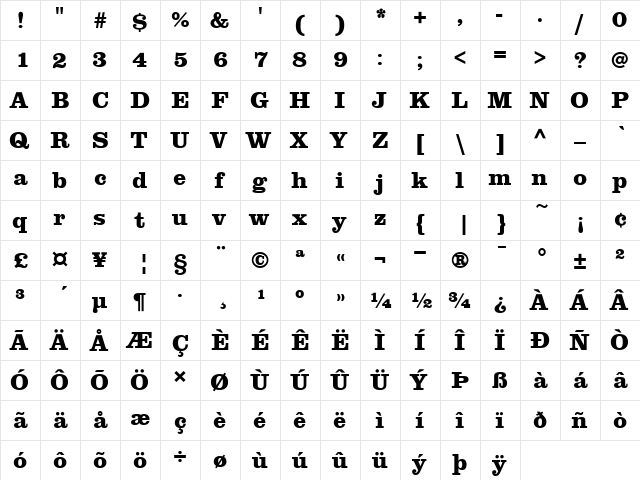
Clarendon T Regular
Design Context for Clarendon T Typeface
Clarendon T combines the readability of serif typography with the visual weight of a slab construction, resulting in a typeface that feels both authoritative and approachable.
Suited to magazines, political campaign materials, bold packaging, and any setting where authority matters.
Pro Tip: Use Clarendon T for headlines and subheadings where its slab serifs can make an impression. It also holds up well in mid-size body copy thanks to its sturdy construction.